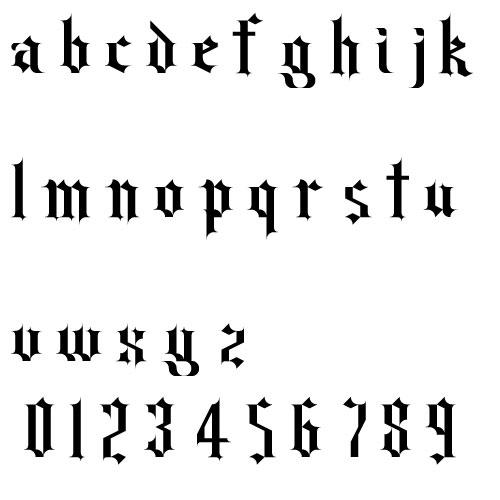
Fireside Threads is happy to present Old Gothic Embrilliance machine embroidery font which has This old gothic machine embroidery font showcases stylized letters with sharp angles, perfect for dramatic designs on apparel or home decor. Available in BX font and Embrilliance formats. included. If you would like to view more embroidery fonts and alphabets please search our embroidery fonts page.